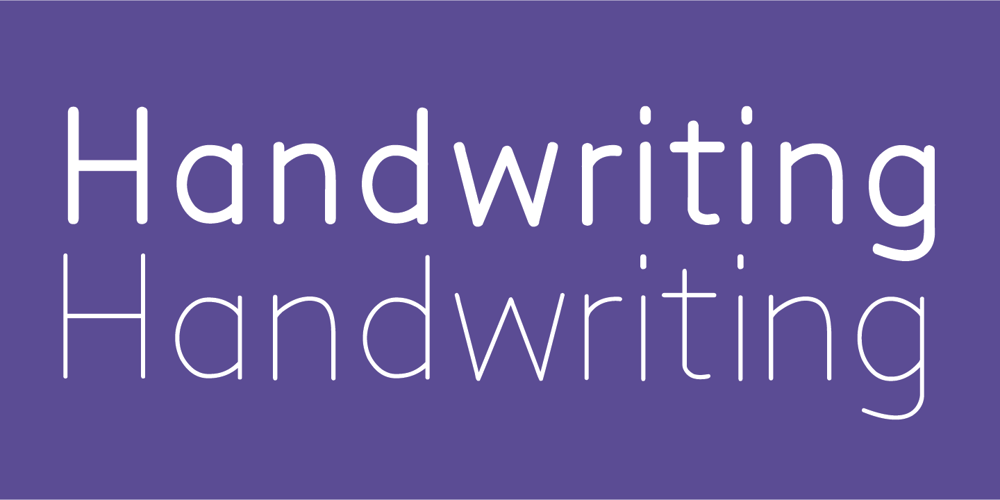
SF Handwriting Font Family was designed by Sultan Maqtari and published by Sultan Fonts. SF Handwriting contains 4 styles and family package options. The SF Handwriting font family is designed for educational and printing purposes. It is a carefully crafted font that supports Arabic, Latin, Persian, and Urdu. The font is characterized by its clarity, ease of reading, and visual appeal. It is also convenient to use in small sizes. The SF Handwriting font family includes three weights: Regular, Bold, and Black. The Dotted style is designed with a straight background for printing and overwriting by children or other users.